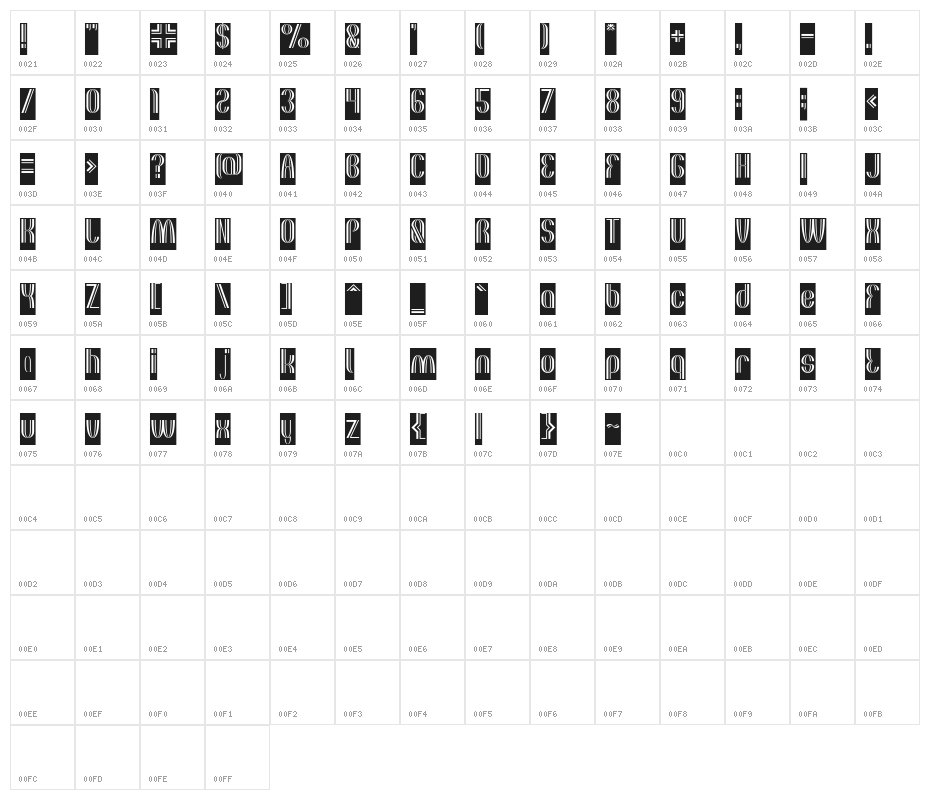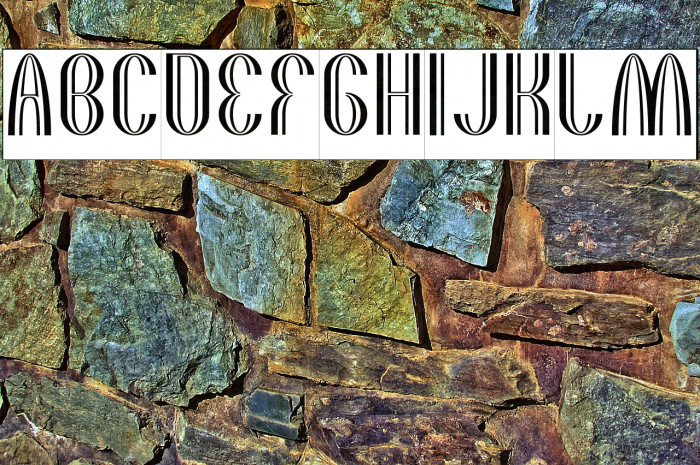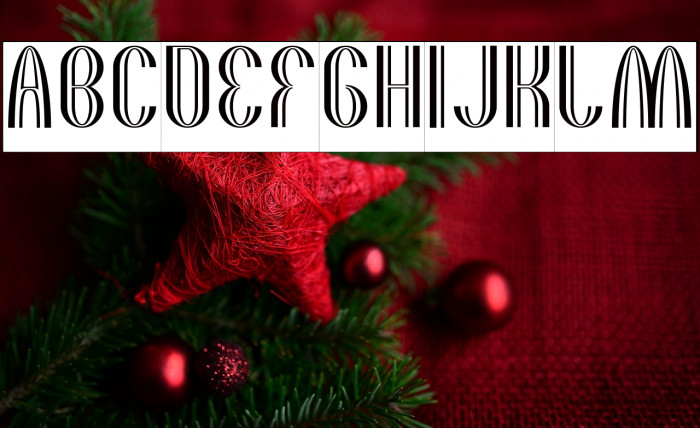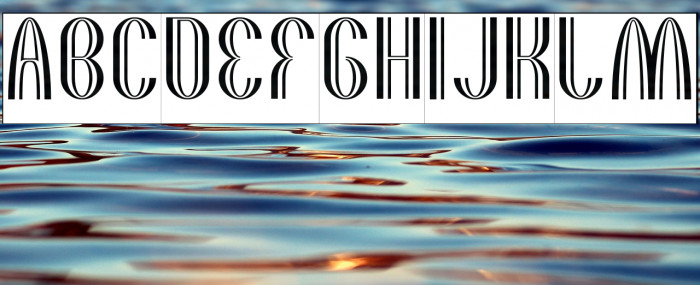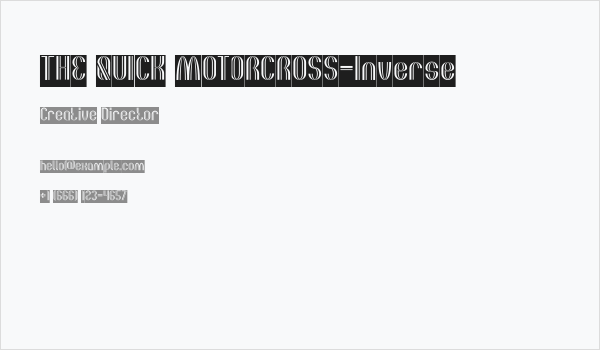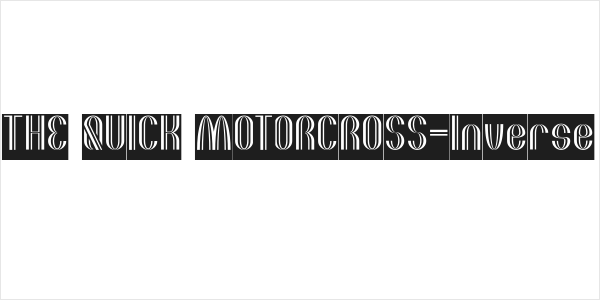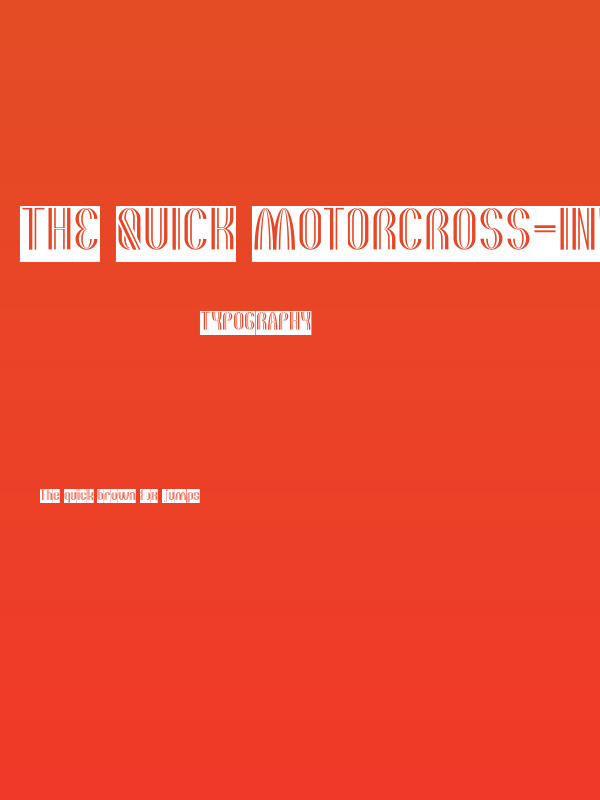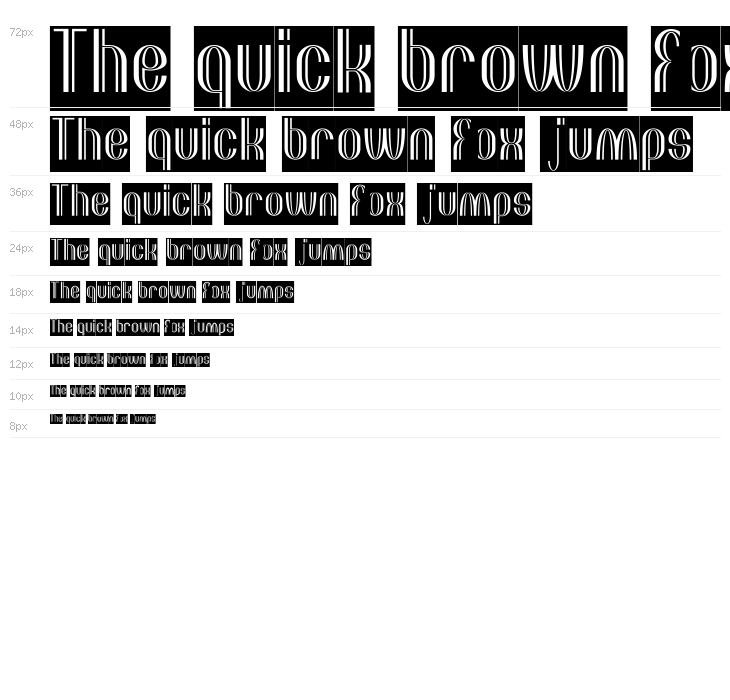
THE QUICK MOTORCROSS-Inverse Font
THE QUICK MOTORCROSS-Inverse Description
This font features a unique and modern design with a high contrast between thick and thin strokes. The characters are elongated and have a distinct vertical emphasis, giving them a sleek and stylish appearance. The uppercase letters are bold and commanding, while the lowercase letters maintain a consistent style with a slightly more playful touch. The numerals and special characters complement the overall aesthetic, making the font versatile for various design applications. The spacing between characters is tight, enhancing the compact and cohesive look of the text.